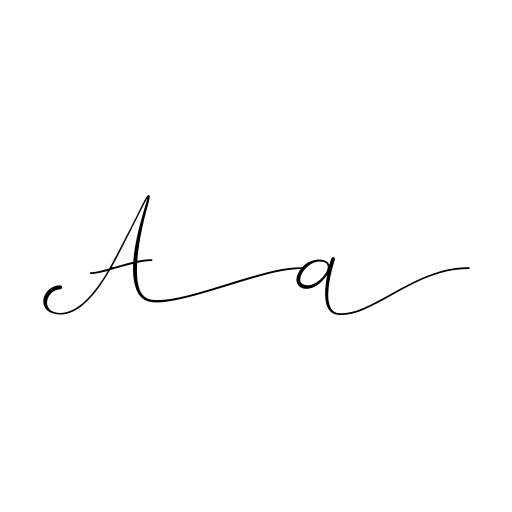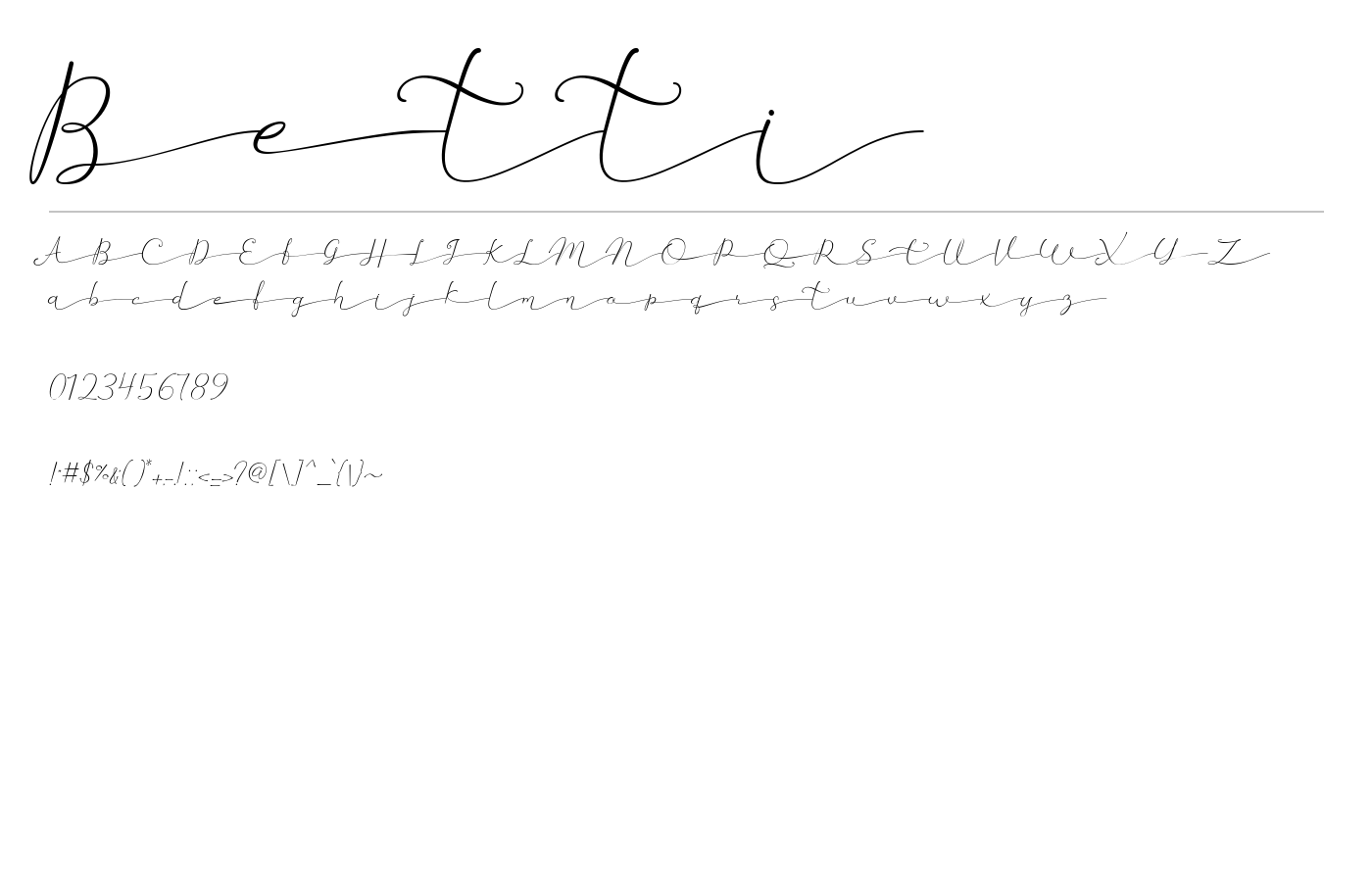
Betti Font is a delicate and elegant script typeface featuring thin, flowing lines that mimic fine handwriting. Its graceful, airy letterforms with high contrast and smooth, looping strokes make it perfect for invitations, fashion branding, or any design that seeks a sophisticated, personal touch. This font works best in display contexts where its refined style can shine without losing readability.
Betti Font